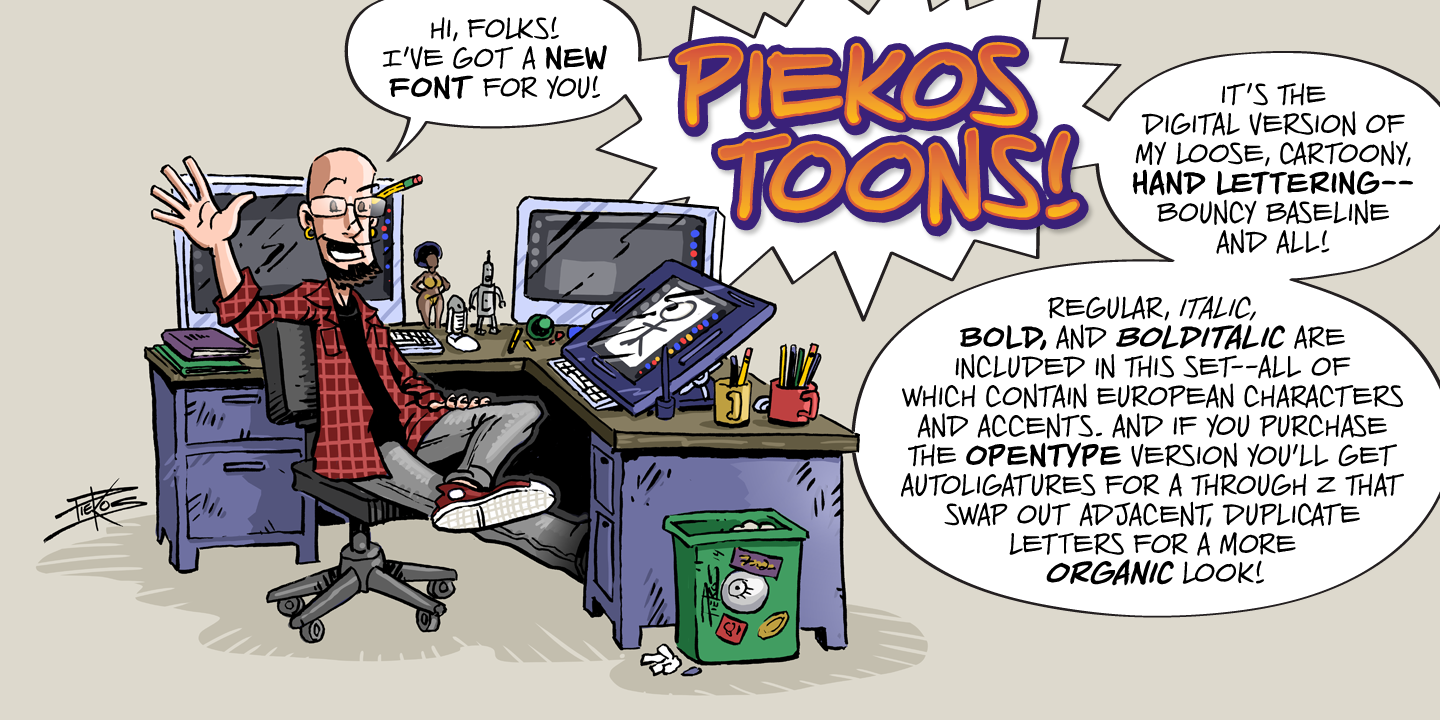
Piekos Toons BB Font is a wonderfully whimsical and lively display typeface, designed to capture the fun and boundless energy of classic cartoons and animated characters. Its playful, often bouncy or exaggerated letterforms make it an excellent choice for projects that aim to convey joy, lightheartedness, and a sense of creative imagination. Imagine it perfect for children's book titles, animated series branding, cheerful party invitations, vibrant toy packaging, engaging social media content for kids' brands, or fun educational materials. This font excels in environments where a sense of youthful exuberance, approachability, and an unmistakable cartoonish charm are paramount. It’s particularly effective for conveying happiness and sparking creativity, ensuring your message not only stands out but also brings a smile to the viewer's face.
What makes Piekos Toons BB Font truly exciting is its incredible ability to infuse designs with an infectious sense of movement and animated personality. It often features quirky details, uneven baselines, or exaggerated curves that give each character a unique, almost mischievous charm. This font isn't just about displaying text; it's about bringing your words to life, making them bounce, wiggle, and dance on the page or screen. It has a powerful ability to feel both incredibly fun and surprisingly versatile, making it an ideal tool for designers who want their work to convey excitement, playfulness, and a truly memorable visual experience. Piekos Toons BB Font empowers brands and creatives to project an image that is vibrant, friendly, and full of imaginative spirit.
The Piekos Toons BB Font family often focuses on delivering its unique, animated display style with optimal impact and character. You'll typically find it available in strong, impactful weights, which best showcase its distinctive design elements and playful nature. While it might not feature a wide range of weights or conventional italic styles, some versions could include stylistic alternatives for certain characters, ligatures, or even unique dingbats that further enhance its whimsical and cartoonish appearance, allowing for even more customized typographic compositions. The comprehensive character set generally covers standard Latin characters, numbers, and a selection of punctuation, ensuring that Piekos Toons BB Font Free Download is suitable for a wide array of creative and commercial applications where a bold and distinctive statement is desired. Its memorable and joyful presence ensures that any project featuring Piekos Toons BB Font will leave a strong, lasting impression.